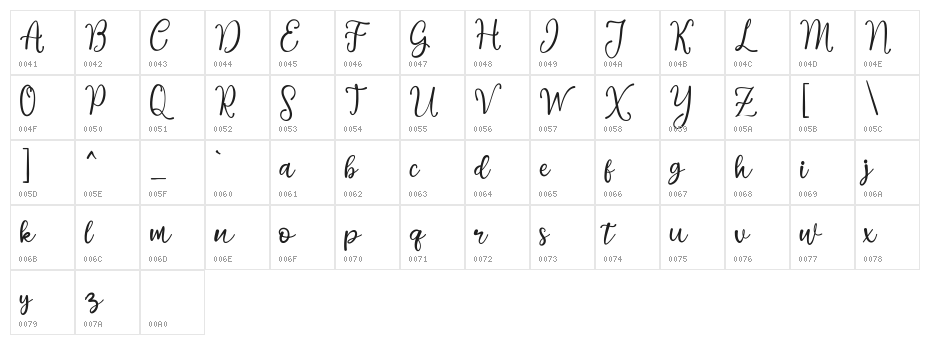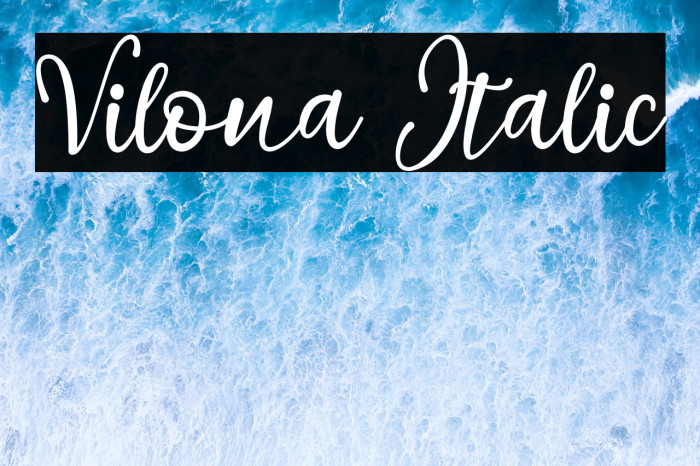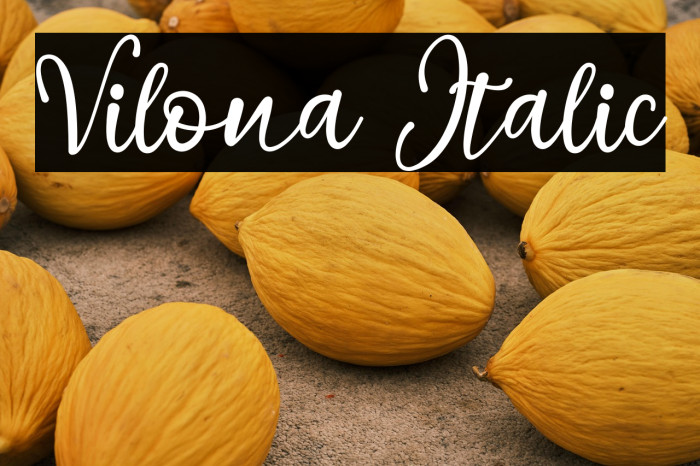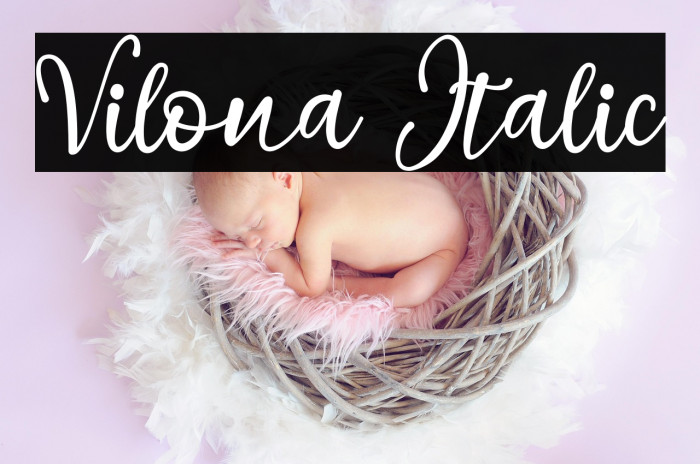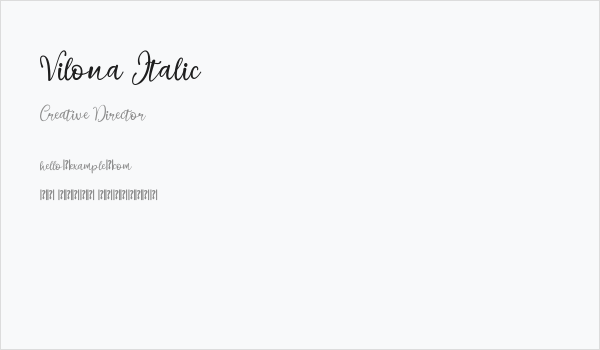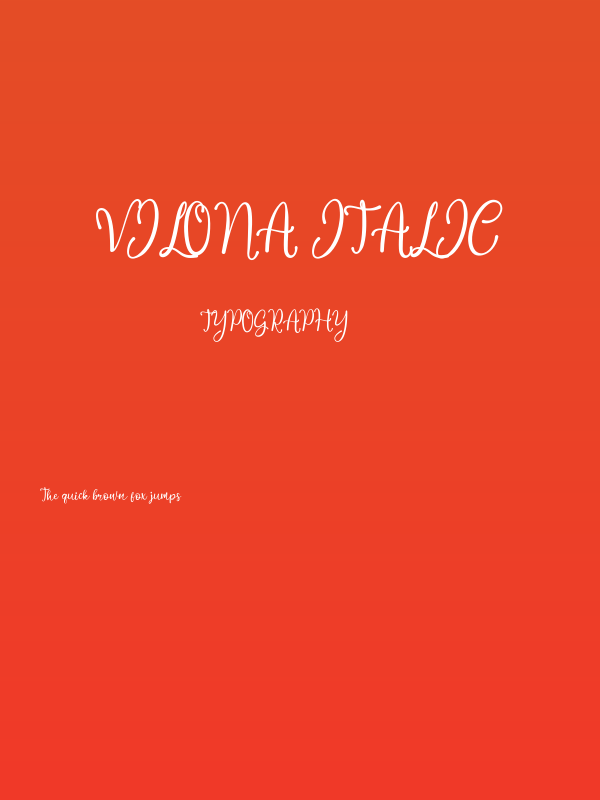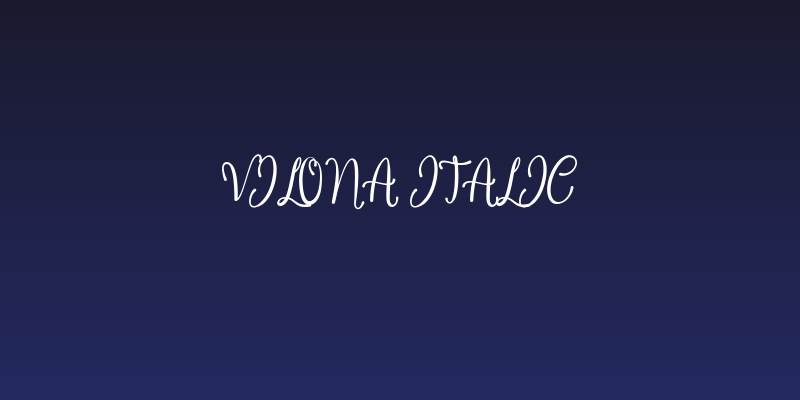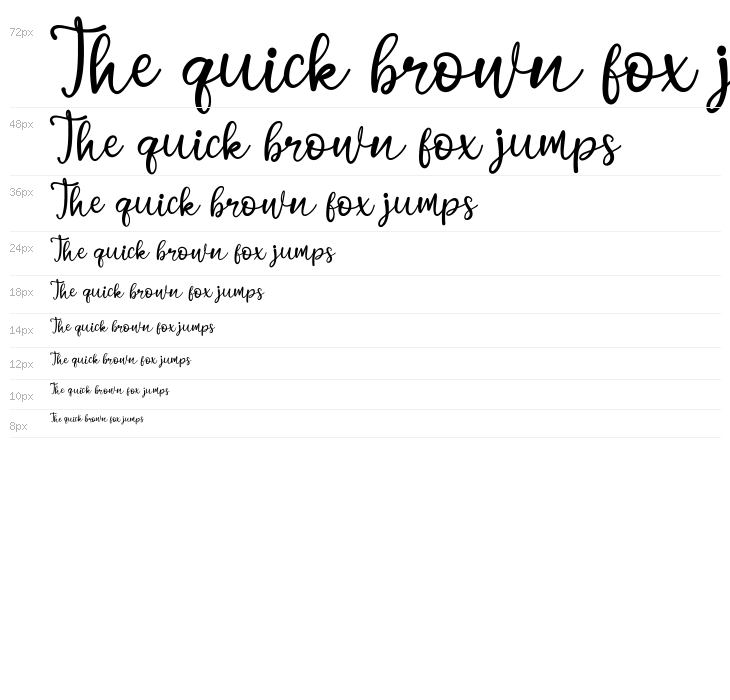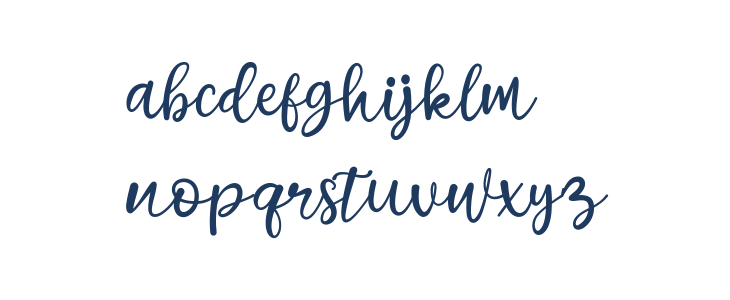
Vilona Italic Font
Vilona Italic Description
This font features a flowing, cursive style with elegant, sweeping strokes that give it a sophisticated and artistic appearance. The letters are connected, creating a seamless and fluid look, which is characteristic of script fonts. The uppercase letters are slightly more elaborate, with additional flourishes, while the lowercase letters maintain a consistent, smooth flow. The overall design is balanced, with a moderate contrast between thick and thin strokes, enhancing its readability while maintaining its decorative appeal. This font exudes a sense of elegance and creativity, making it suitable for projects that require a personal and artistic touch.
| Overall Style | Elegant, Artistic |
| Proposed Projects | Ideal for wedding invitations, greeting cards, branding, and artistic projects. |